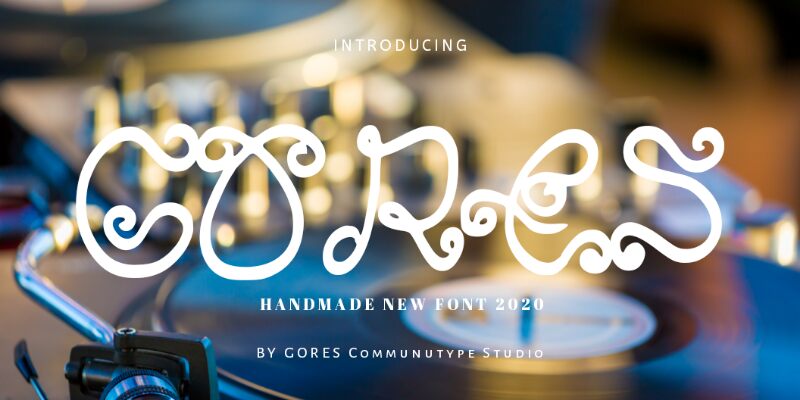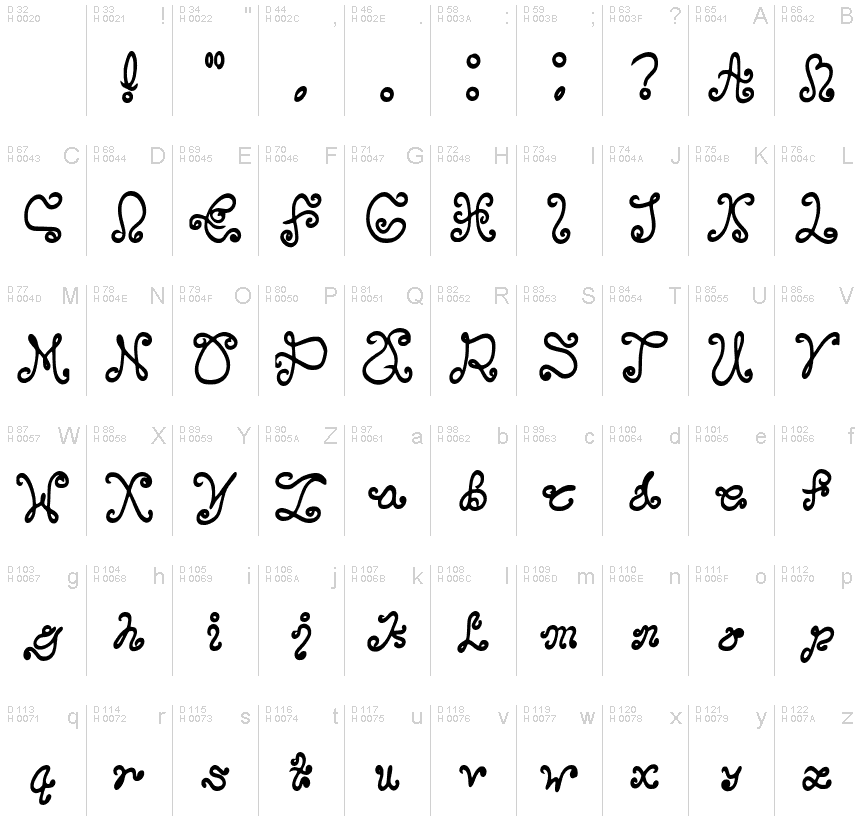
Introducing theNew Font, Stylish handwritten style. This beautiful script font offers your personal touch to your latest art project with elegant, classy and modern look.
This Font offers gorgeous typographicwill perfect for many different project such as logos & branding, invitation, stationery, wedding designs, social media posts, advertisements, product packaging, product designs, label, photography, watermark, special events or anything that need handwriting taste.
Gores